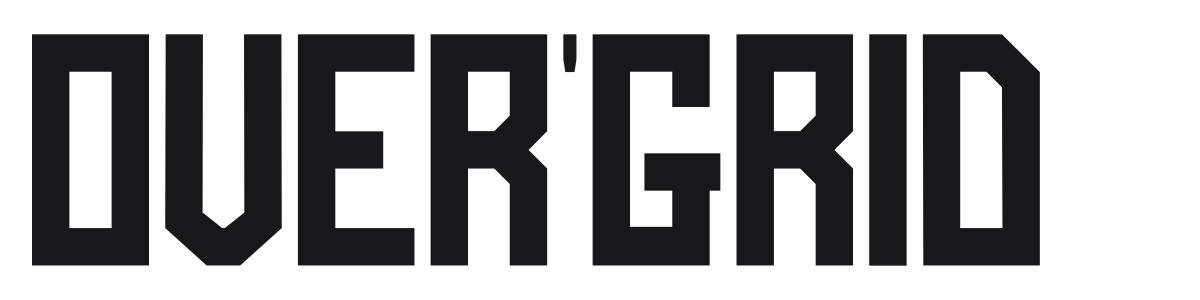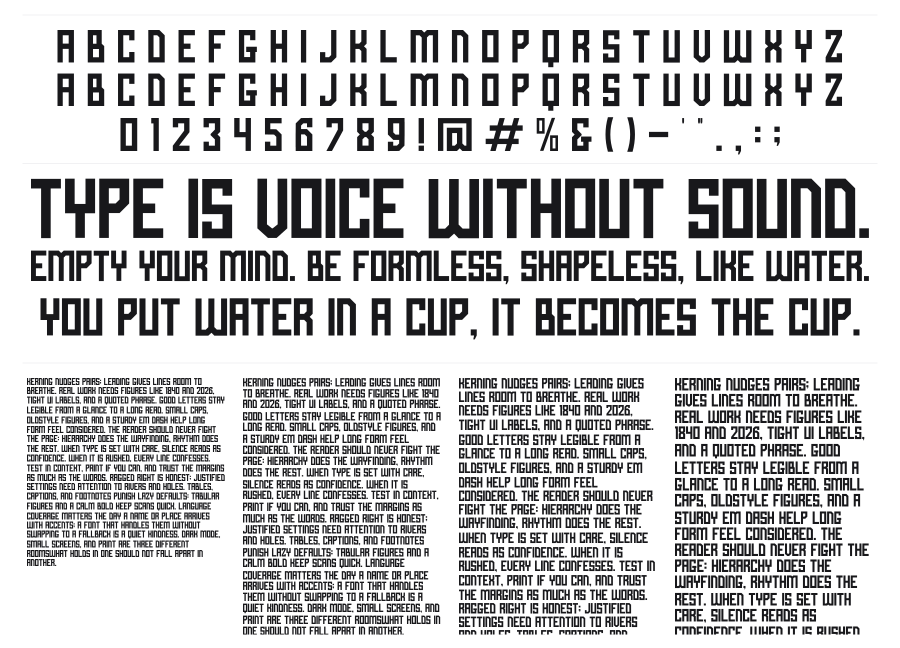
Over'Grid
Over'GridLens is a heavy condensed display face built entirely on a modular grid, where every character is assembled from squared, notched units with consistent weight throughout. The segmented construction recalls LCD displays and industrial stencils, giving it a raw technical edge. Strong at large sizes for posters, game titles, and brand identities that need a bold, structured presence.